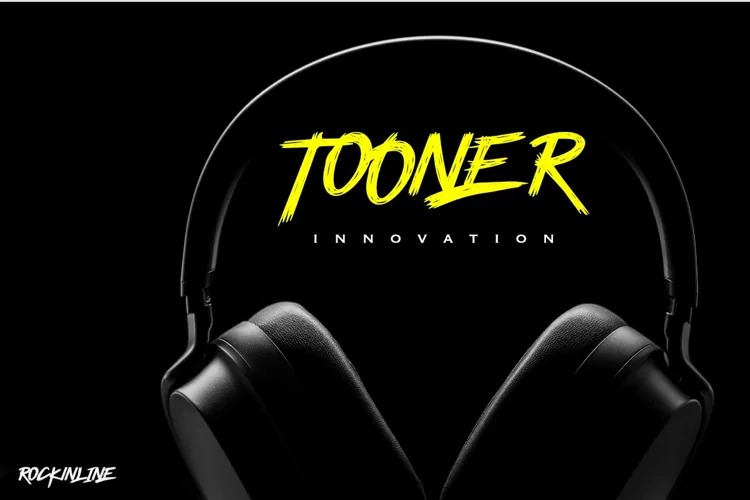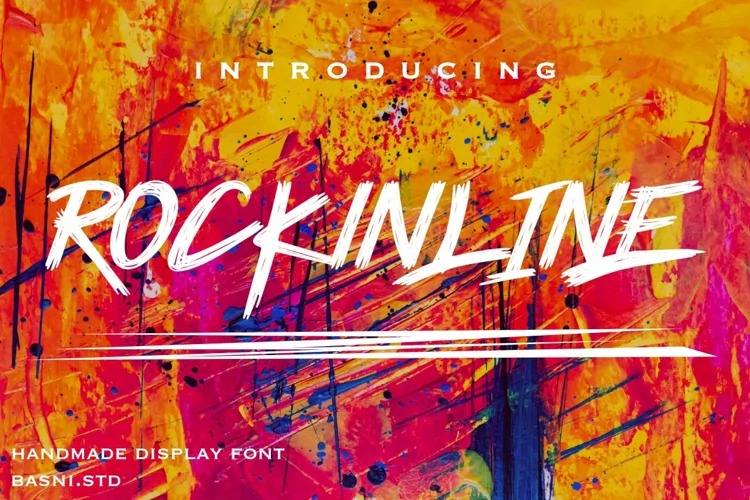
Rockinline Font
Rockinline Brush Font
This font is a natural brush style and authentic classy style, this font is great for your creative projects such as watermark on photography, and perfect for logos & branding, invitation,advertisements,product designs, stationery, wedding designs,label ,product packaging, special events or anything that need handwritting taste.